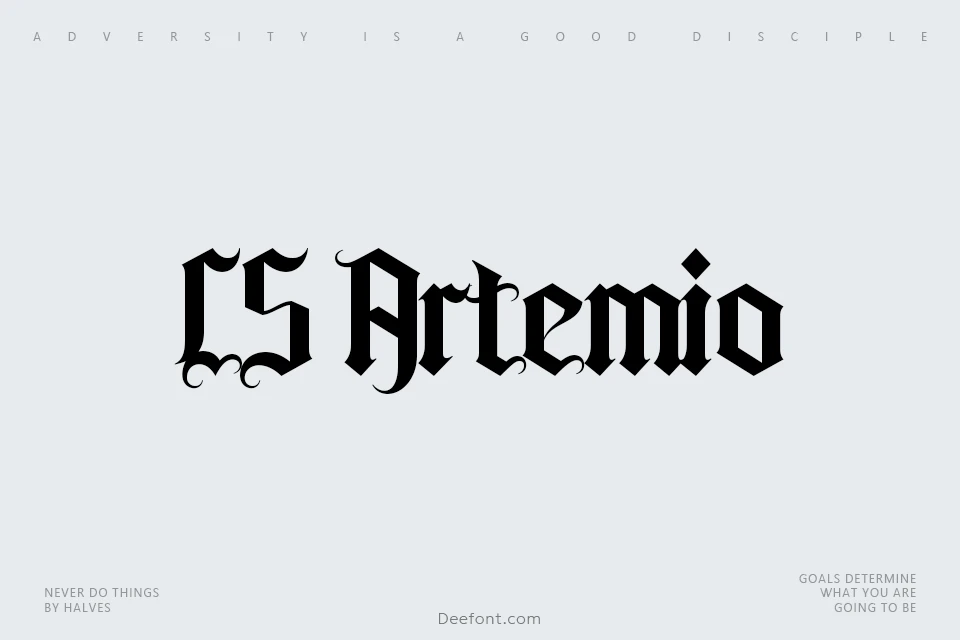
CS Artemio Font
CS Artemio Font is a Blackletter Gothic display serif typeface that embodies medieval elegance and gravitas. Its intricate and ornate letterforms bring a sense of historical charm, tradition, and sophistication to any design, making it ideal for luxury branding, formal invitations, themed events, and projects that require a bold and authoritative visual impact. The font includes Regular, Italic, and Reverse Italic styles, supports multilingual characters, and is PUA encoded for easy use in various design software.